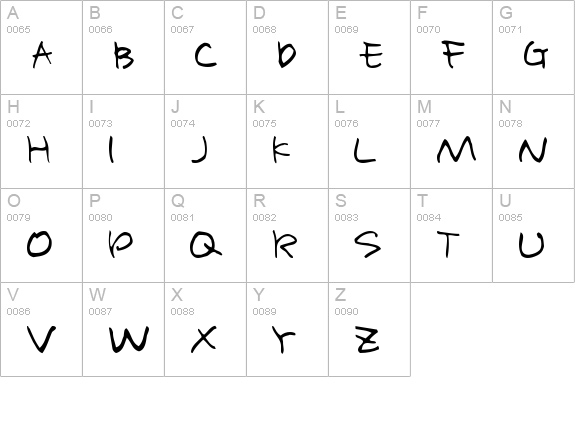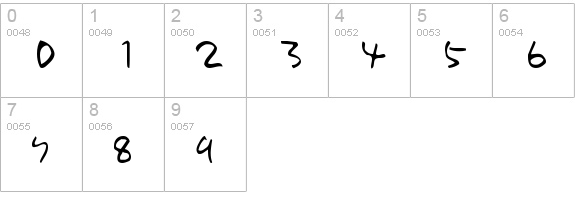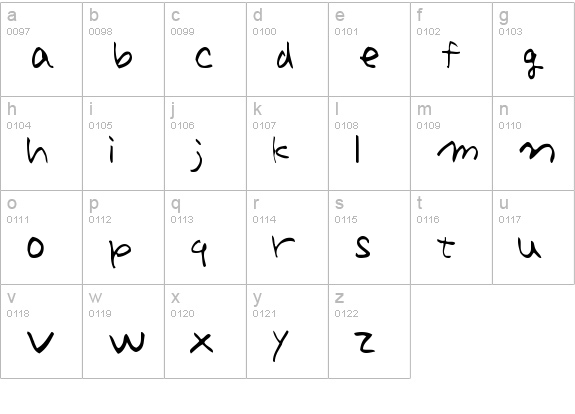
Holiday-MDJP01 font is a delightful and whimsical typeface that will bring a touch of fun and playfulness to your design projects. With its charming handwritten style, this font is perfect for creating greeting cards, invitations, posters, and more. The Holiday-MDJP01 font features a unique blend of playful curves and elegant strokes, making it a versatile choice for both personal and professional use. Best of all, the Holiday-MDJP01 font is available for free download at FontsMarket.com. Whether you're a seasoned designer or just starting out, this font is a great addition to your collection. Add a touch of joy and creativity to your projects with the Holiday-MDJP01 font today!